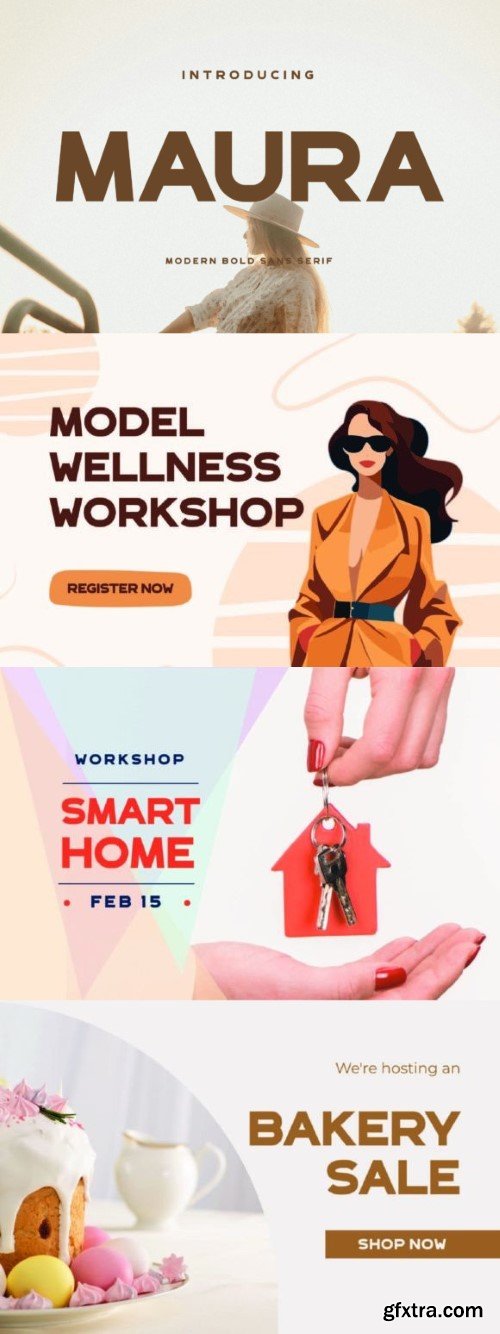
玛莎·文 (Maura Font)
Maura is a straightforward and bold sans-serif font that embodies simplicity and clarity. Its clean lines and balanced proportions make it perfect for various design applications, from body text in publications to headers on websites. Maura maintains readability while offering a modern and uncluttered aesthetic for your projects.